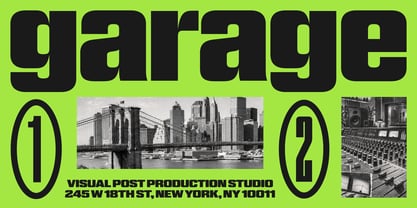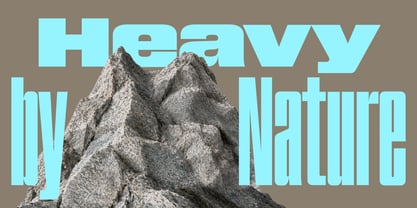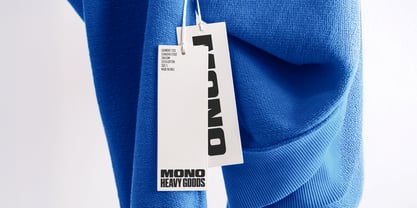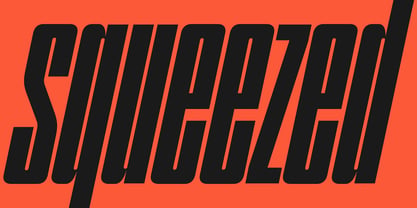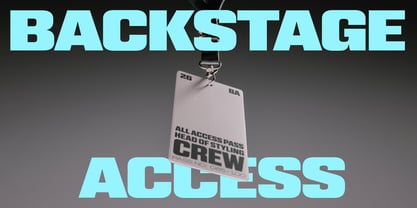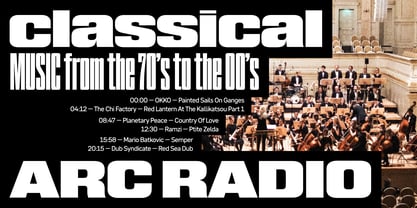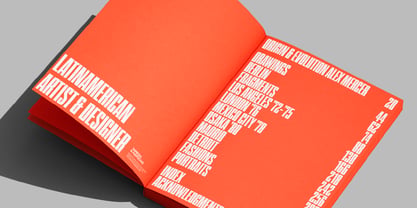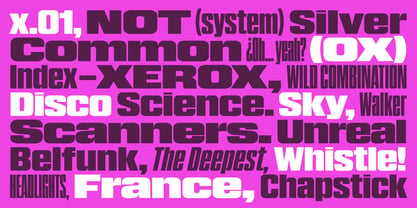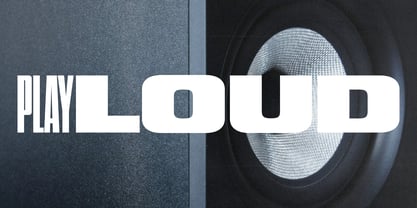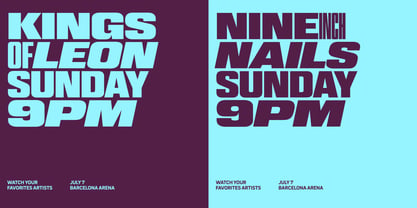
WTF Hammer
by W Type Foundry
The WTF Hammer Font Family and published by W Type Foundry. WTF Hammer contains 24 styles and family package options.
WTF Hammer is a contemporary grotesk superfamily featuring 12 width variants plus matching italics.
Designed as an expressive typeface, its wide range of proportions invites experimentation with staggered compositions, compact headlines, and dynamic layouts.
Ranging from Super Condensed to Wide, Hammer offers a flexible system for creating rhythm, contrast, and visual tension. Its extensive range of widths makes it especially suited for headlines and display typography, while offering plenty of flexibility across editorial design, web, branding, cultural projects, and more.